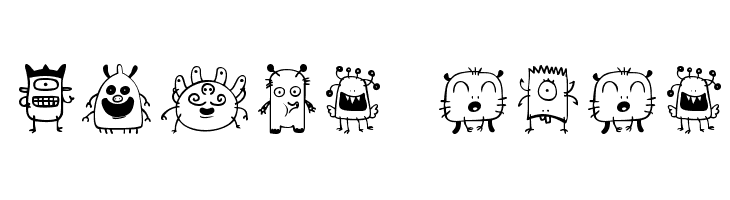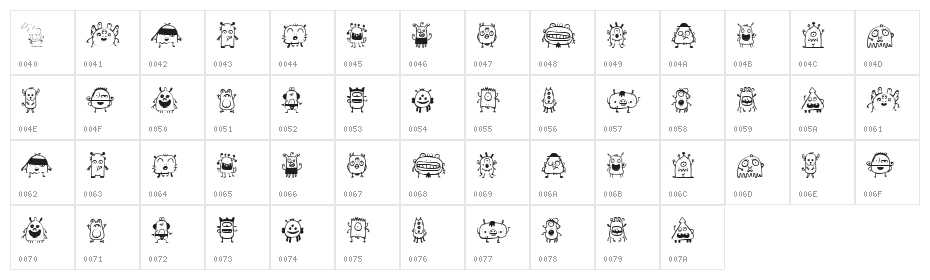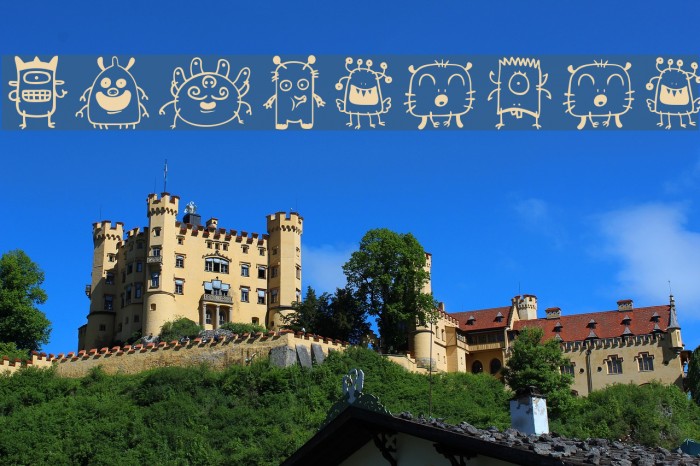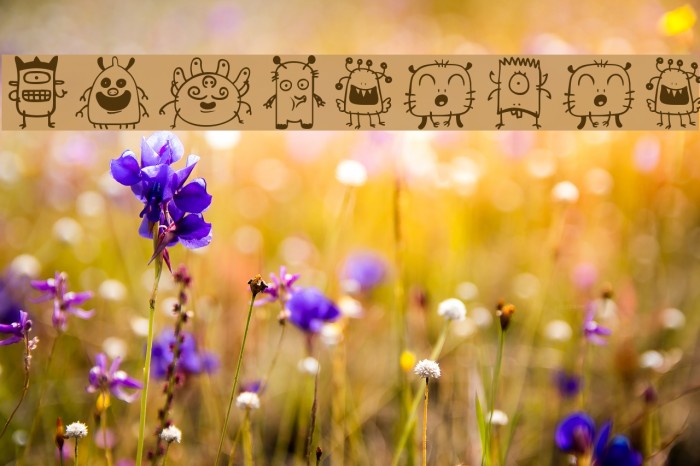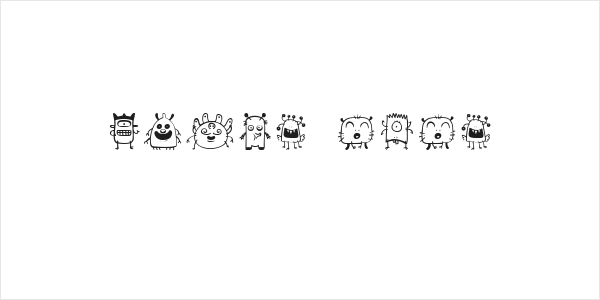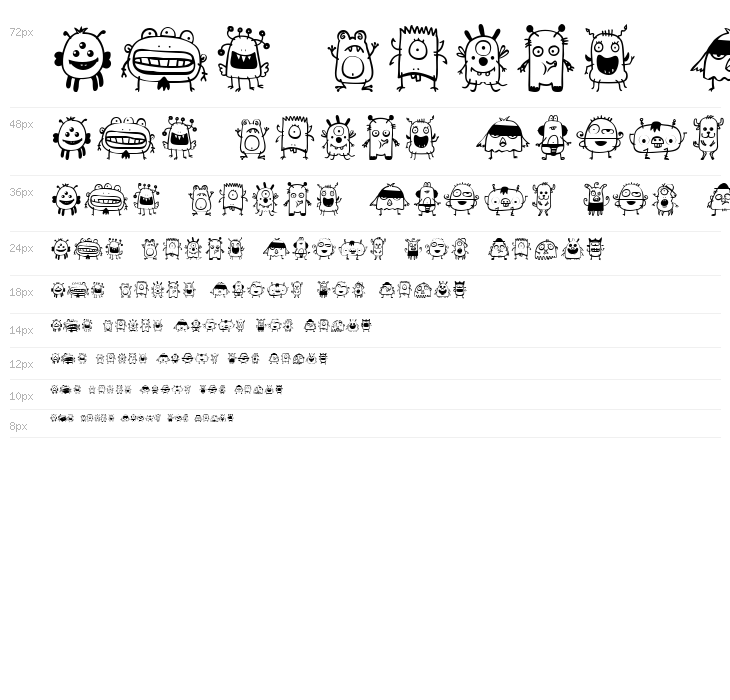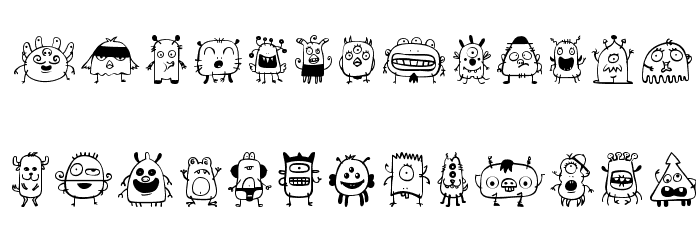
space dude Font
space dude Description
This set of whimsical characters features a variety of quirky, cartoon-like alien creatures. Each character is distinct, with playful expressions and unique features such as antennae, multiple eyes, and exaggerated smiles. The style is hand-drawn, with a consistent line weight that gives a cohesive look across all characters. The designs are imaginative and fun, making them suitable for creative projects aimed at children or those with a playful theme. The characters are arranged in a grid, showcasing their diversity and charm.
| Overall Style | Whimsical, Playful |
| Use Case | Decorative elements, Illustrations |
| Proposed Projects | Ideal for children's books, educational materials, playful branding, or themed party invitations. |